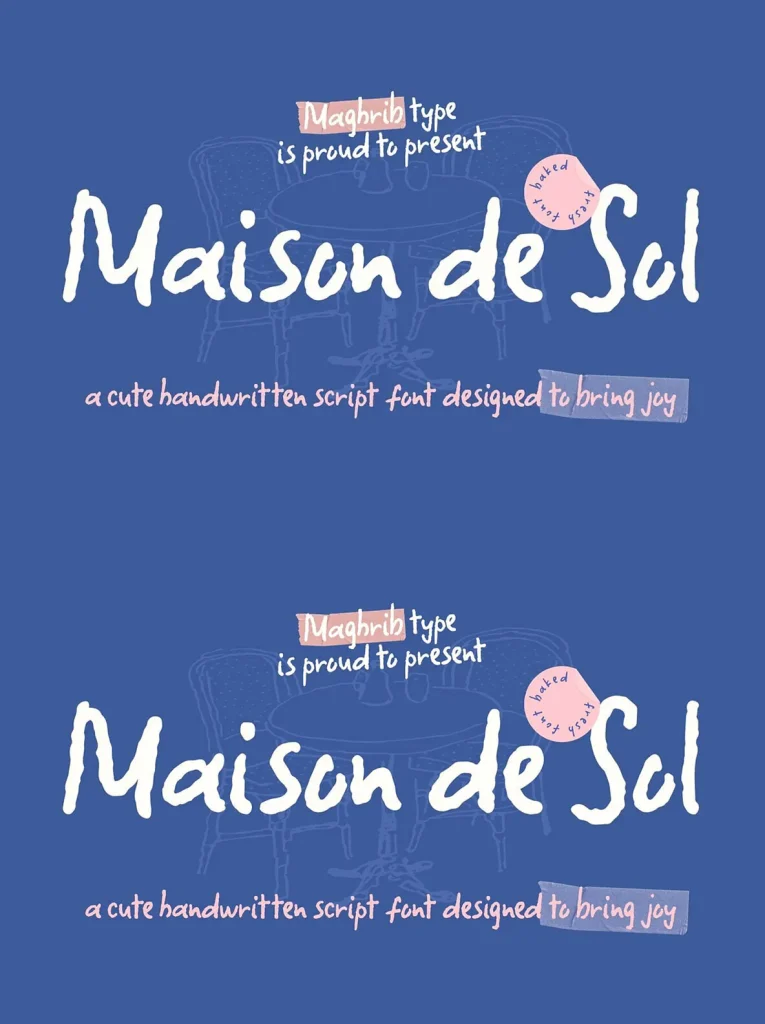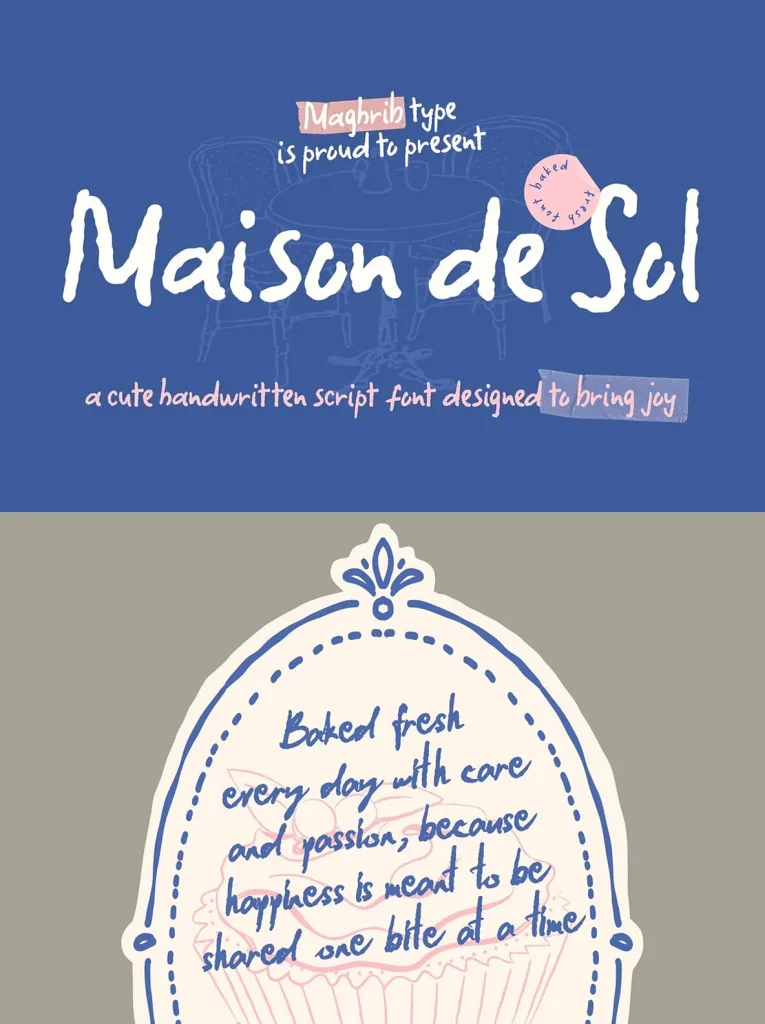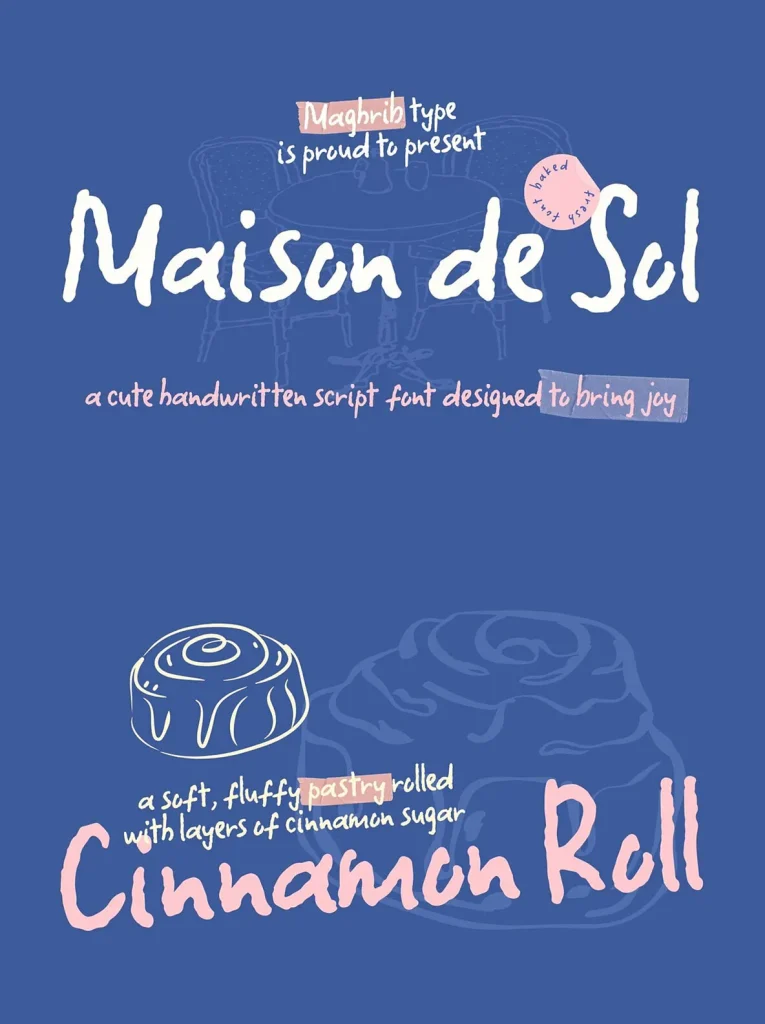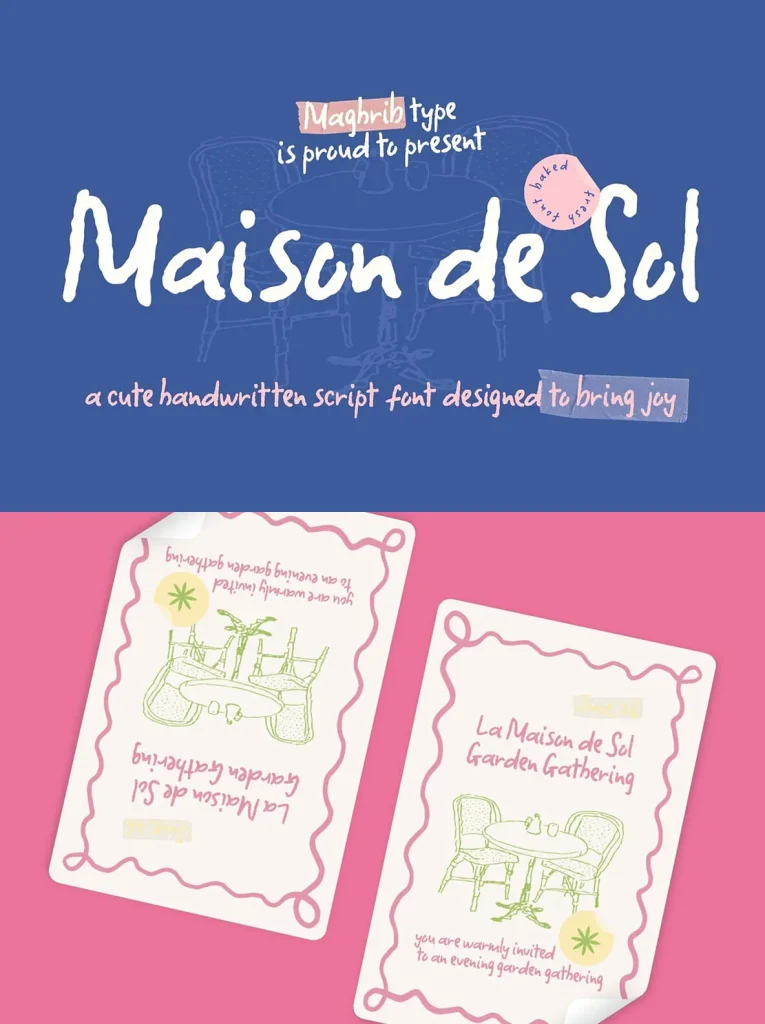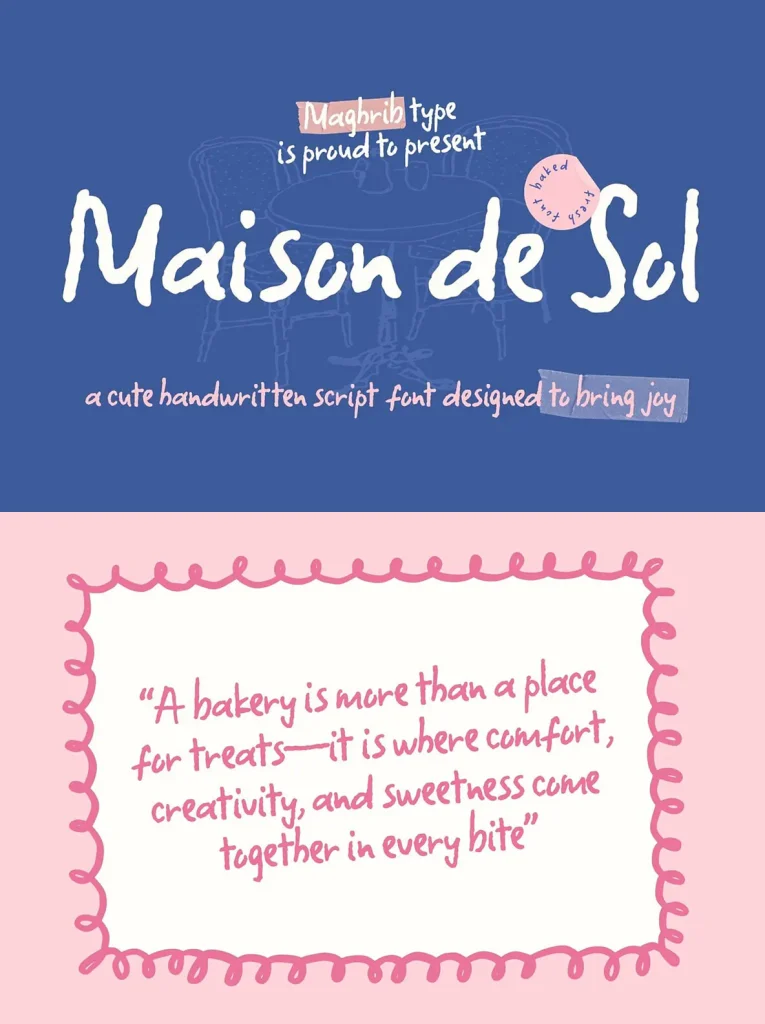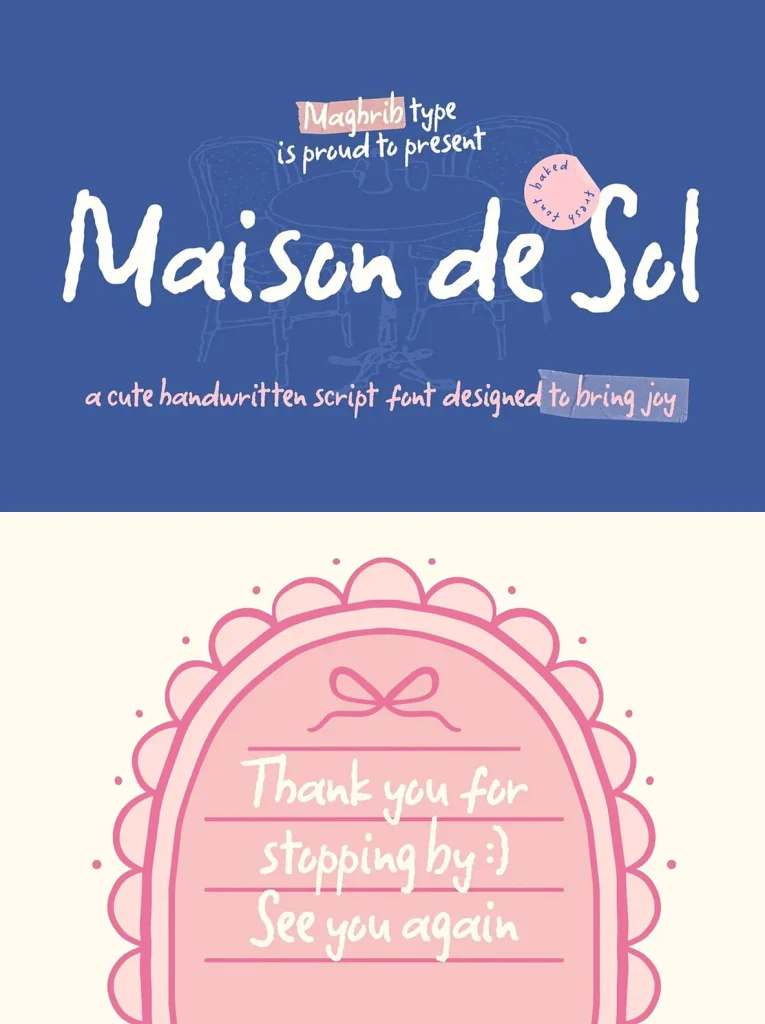
Maison De Sol Font
Maison De Sol — Warmth in Handdrawn Type
Maison De Sol is a charming and expressive handdrawn font duo made to bring warmth, creativity, and personality to design work. Inspired by cozy cafés, handwritten notes, bakery menus, and joyful everyday moments, Maison De Sol pairs an authentic handwritten script with a playful handdrawn sans serif for modern branding and creative projects.
The script font has natural strokes, organic imperfections, and a friendly handwritten flow that feels personal and inviting. The handdrawn sans serif adds balance, versatility, and readability while keeping the same handcrafted character. Together, they form a harmonious font duo suited to both display use and supporting text.
Use Maison De Sol for branding materials, packaging, social media graphics, greeting cards, invitations, product labels, posters, and lifestyle content. Its sweet, approachable style helps messages feel genuine and memorable, making it a strong choice for creators who value authentic handmade typography.